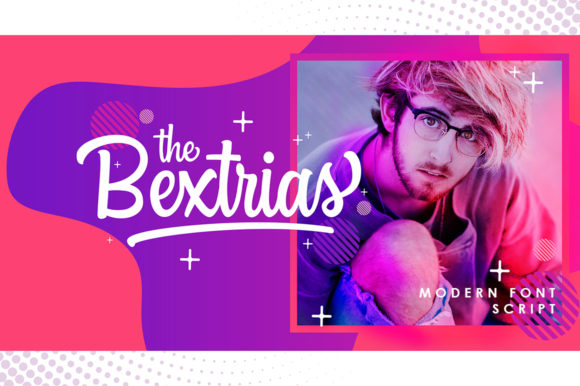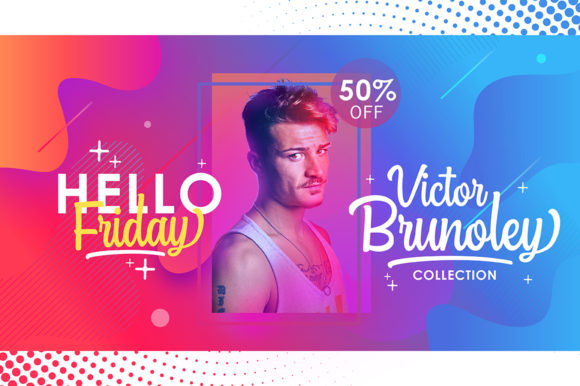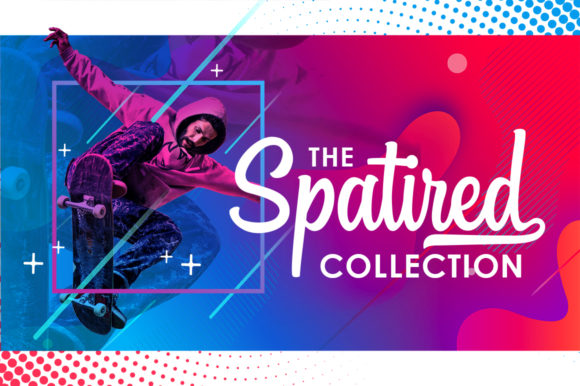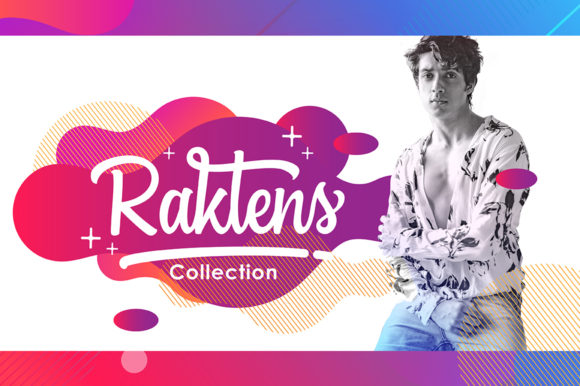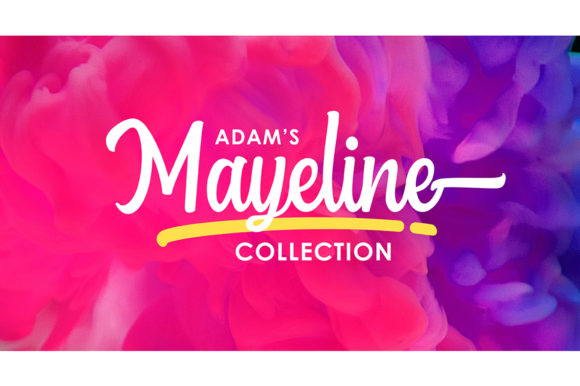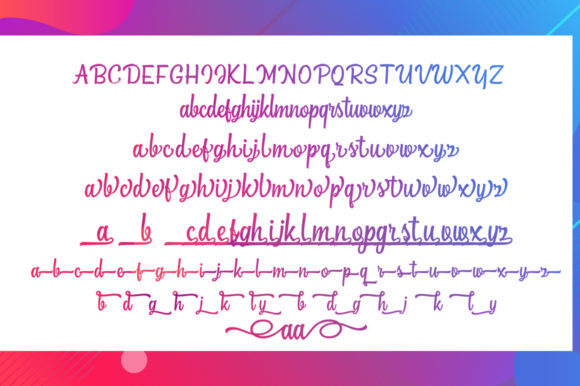
The Bextrias Script Font
About The Bextrias Script Font
The Bextrias is an unique, cool and modern typeface. It’s handwritten style makes it perfect to add a natural touch to your designs.